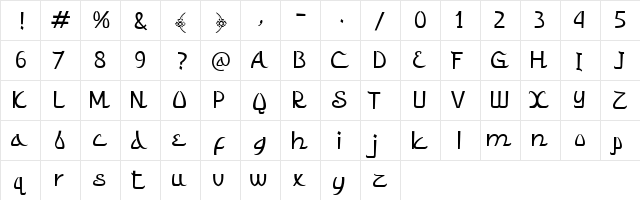
Almanar Regular
| Designer | Ali Hamidi |
Design Context for Almanar Typeface
Almanar is a composed and adaptable typeface that performs quietly and consistently across a wide range of design contexts.
Pro Tip: Pair Almanar with a font of contrasting weight or personality to build a more expressive typographic hierarchy.